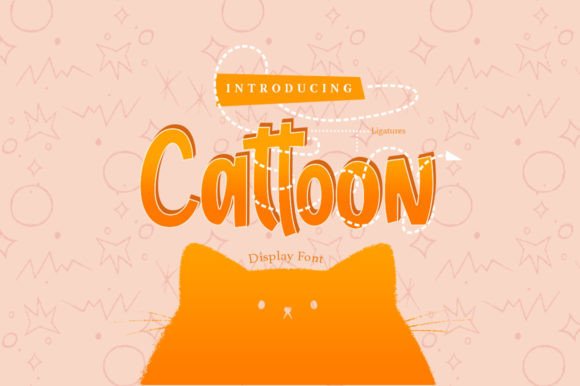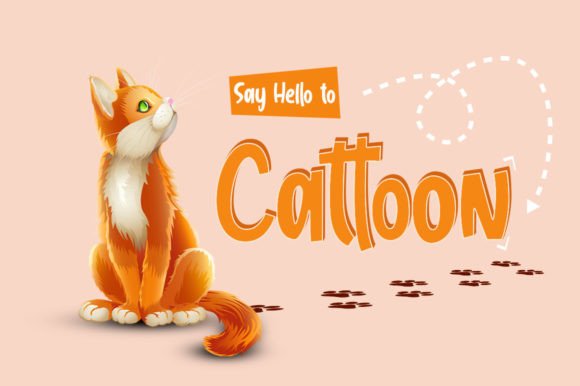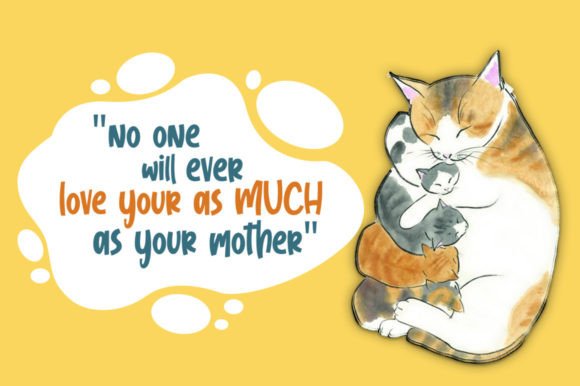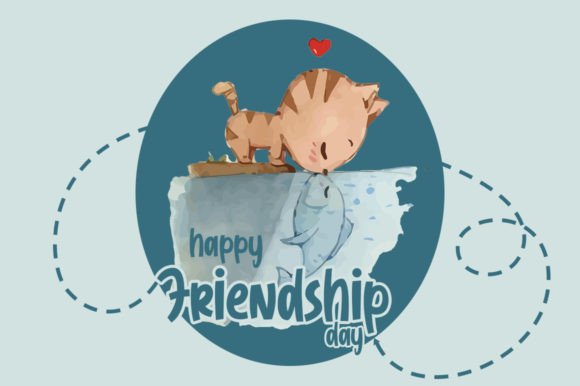
Unlock Your Creativity with Cattoon Font
Have you ever been brainstorming ideas for a new project, and suddenly, a spark of inspiration strikes? That’s exactly what happened to us when we discovered the Cattoon Font. This charming display font has the power to bring your designs to life and add a touch of whimsy to your work.
Cattoon Font is a fun and playful font designed to enhance your creative ideas. Its cute and jolly style makes it perfect for adding a personal touch to your designs. Whether you’re working on a children’s book, a marketing campaign, or a social media graphic, Cattoon Font is sure to add a smile to your audience’s faces.
As a designer, you know how valuable it is to have the right tools at your disposal. The Cattoon Font is a valuable addition to any design arsenal, offering endless possibilities for creativity and self-expression. So why not give it a try and see how it can elevate your designs to the next level?
Cattoon Font Key Features
- Font Style: Cartoonish, playful, and humorous font style, ideal for children’s books, comics, and entertainment-related projects.
- Unique Characteristics: Features exaggerated character shapes, bold lines, and vibrant colors, creating a visually appealing and engaging design aesthetic.
Cattoon Font Review
I recently had the chance to work with the Cattoon font, and I’m sharing my honest thoughts on its strengths and weaknesses. ✨
Cattoon has a playful, hand-drawn feel that’s perfect for projects needing a touch of whimsy.
The font is highly customizable, allowing for adjustments to spacing, weight, and style to suit various design needs.
It’s a great choice for titles, headings, and other display text where a bold, eye-catching font is required.
The Cattoon font can feel a bit cluttered at smaller font sizes, making it difficult to read in certain contexts.
While the customization options are numerous, they can also lead to over-complication, making it challenging to achieve a cohesive look.
The font may not be the best choice for body text or large blocks of text, where legibility is a top priority.
Overall, Cattoon is a solid choice for designers looking to add a touch of personality to their projects. While it has its limitations, its unique character and versatility make it a great addition to any design toolkit. With careful consideration of its strengths and weaknesses, designers can harness the full potential of this engaging font.
For best results, use the Cattoon font in combination with bold colors and playful graphics to create eye-catching designs.
Tips for Getting the Most Out of Cattoon Font
Use the Cattoon font in bold, playful graphics to create eye-catching designs.
Experiment with different text effects and animations to enhance your design.
Combine the Cattoon font with bold colors and playful graphics for best results.